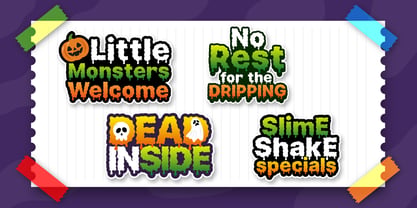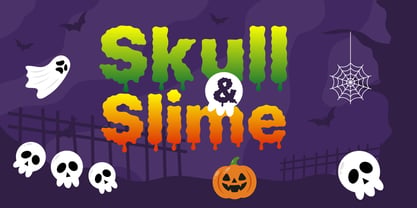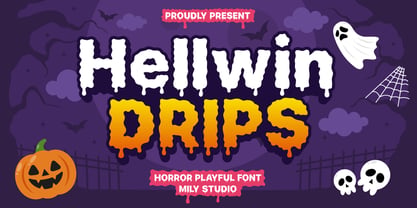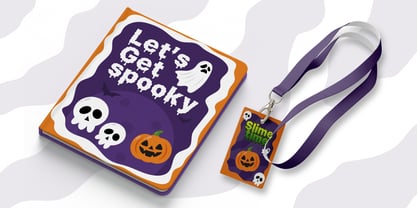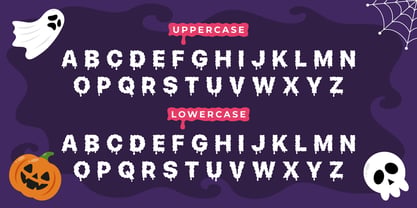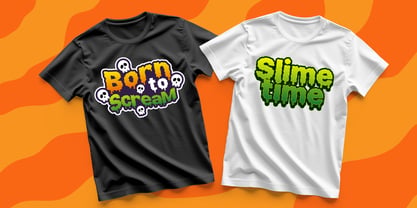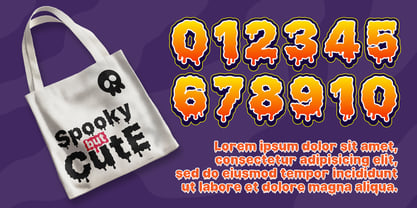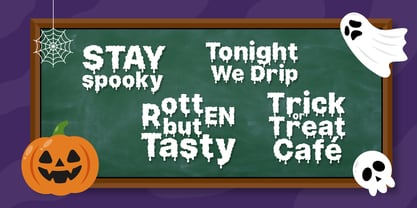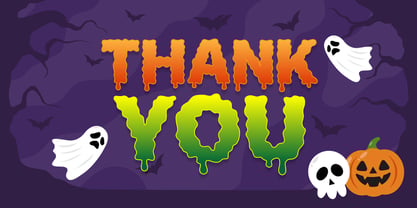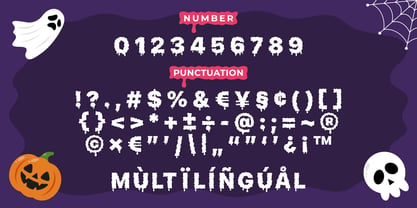
Hellwin Drips
Hellwin Drips is a horror playful font that blends spooky vibes with a splash of fun. With twisted, dripping letterforms inspired by gooey slime, haunted laughter, and Halloween mischief, this font brings creepy charm to your creative projects.